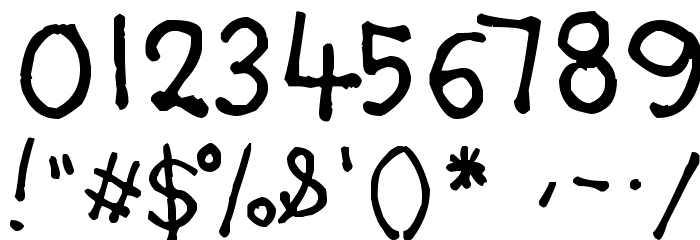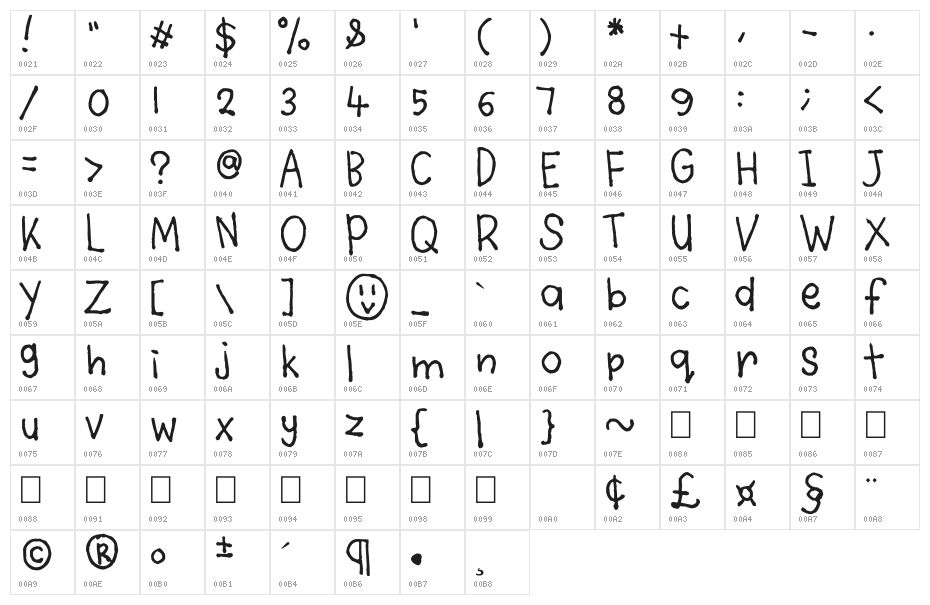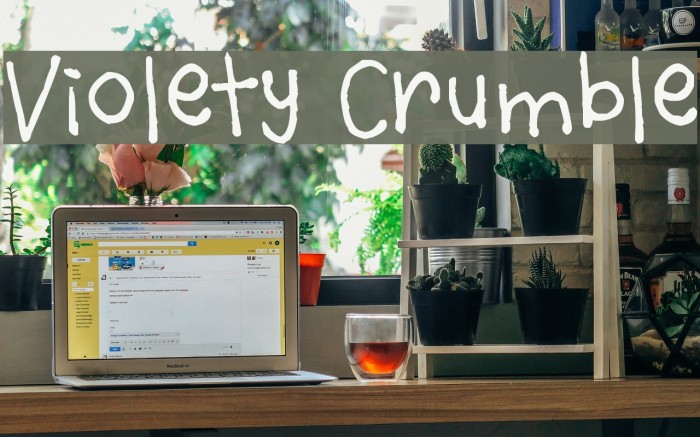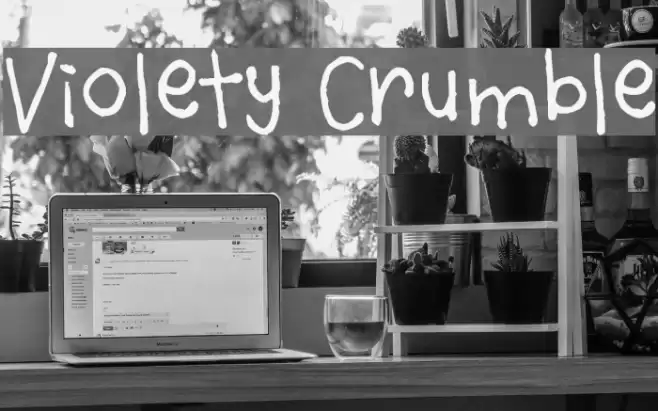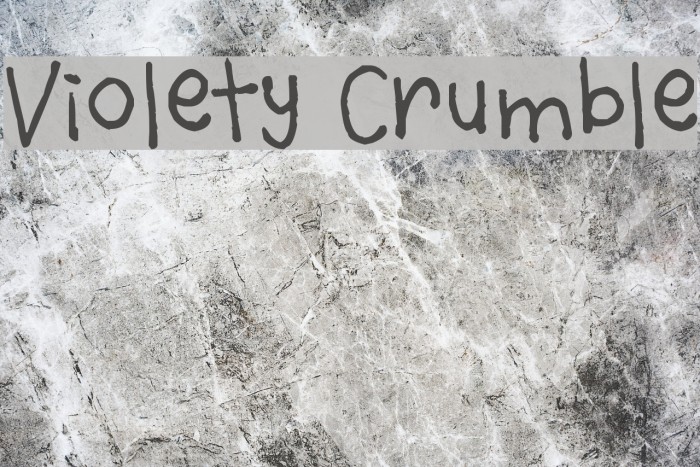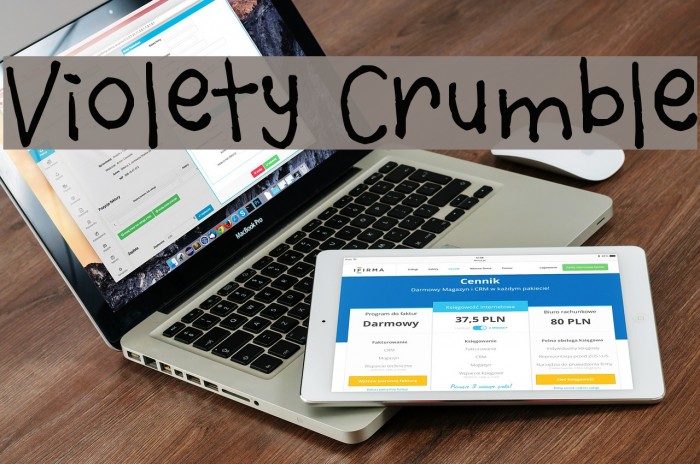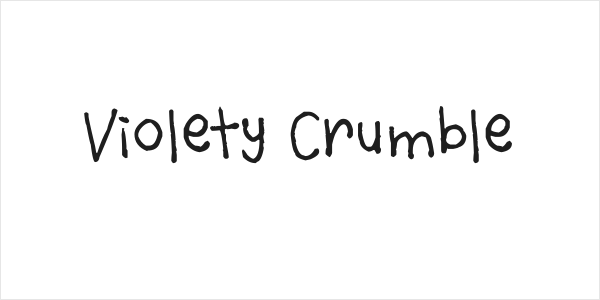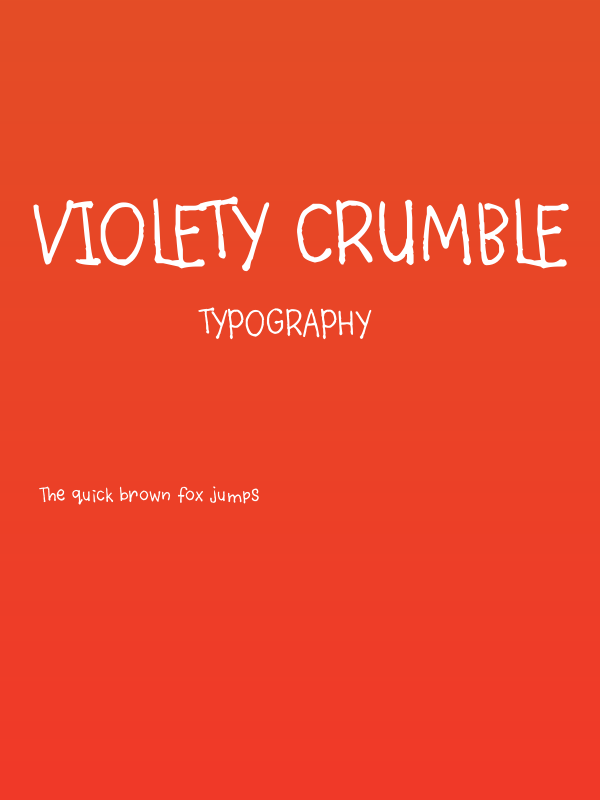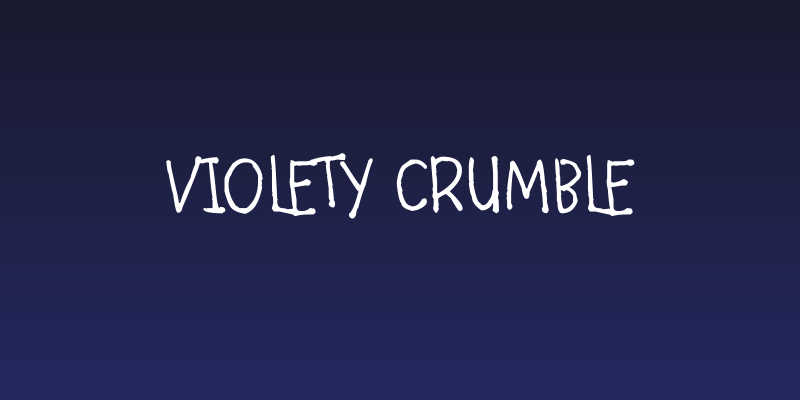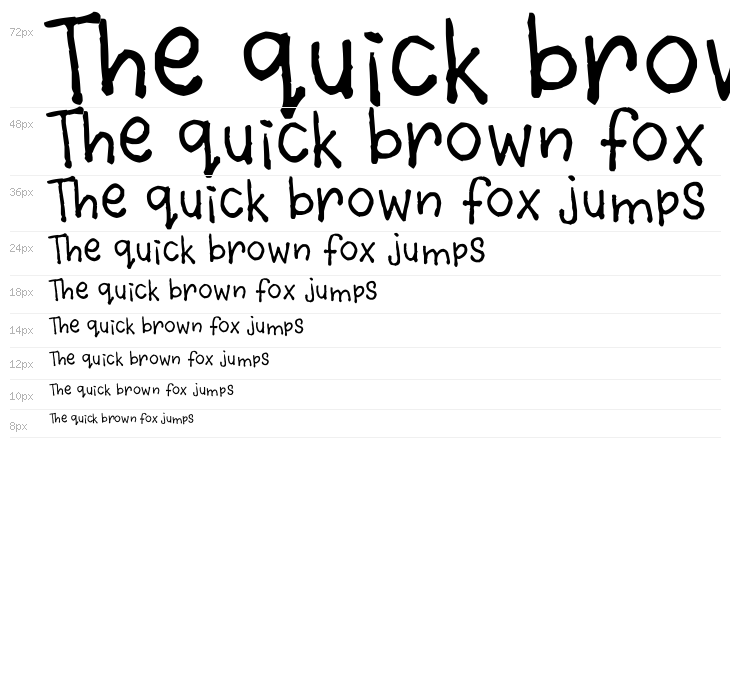
Violety Crumble Font
Violety Crumble Description
This font features a playful and hand-drawn aesthetic, characterized by its irregular and slightly wobbly lines that give it a casual and informal feel. The uppercase and lowercase letters maintain a consistent style, with rounded edges and a slightly uneven baseline, enhancing its whimsical charm. The numbers and special characters follow the same playful design, making it suitable for creative and fun projects. The overall appearance is reminiscent of handwriting, adding a personal touch to any text. Its unique style makes it stand out, perfect for designs that require a touch of individuality and creativity.